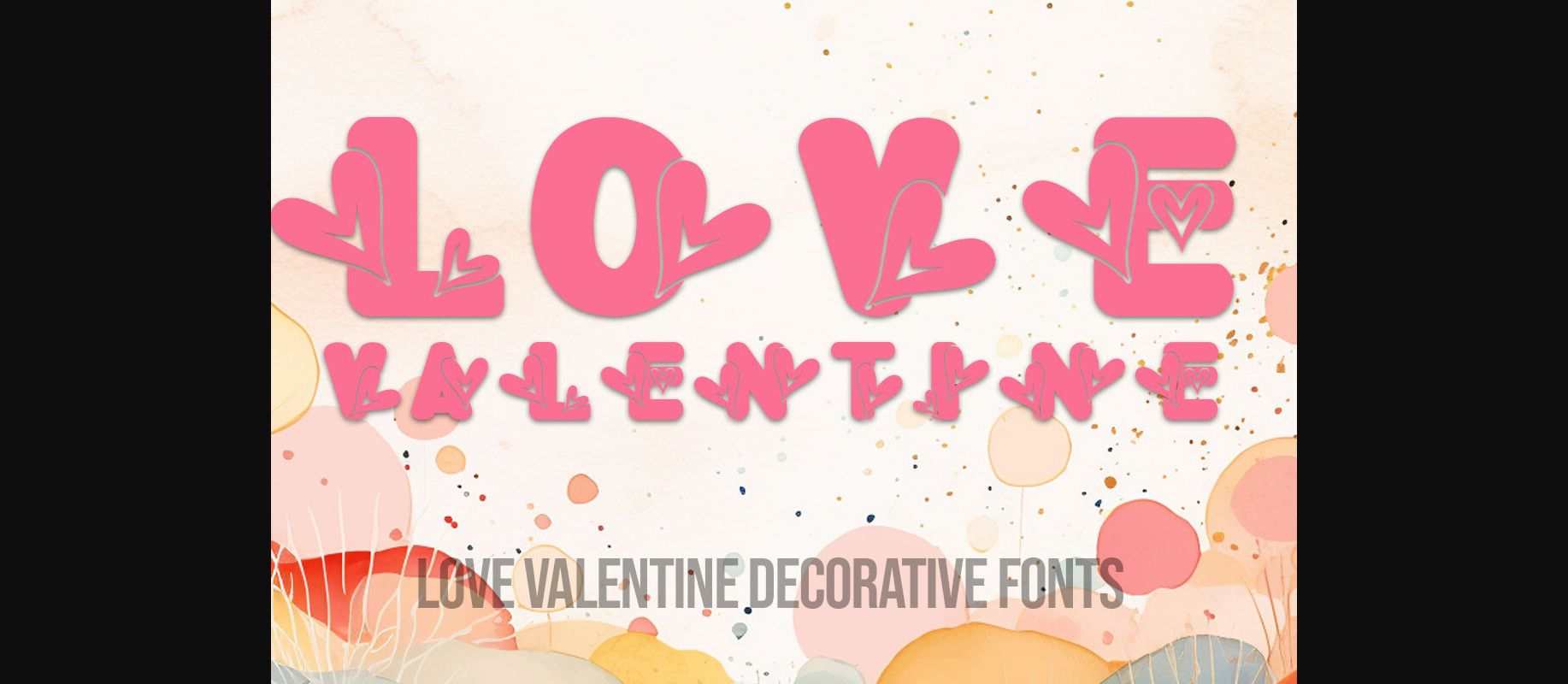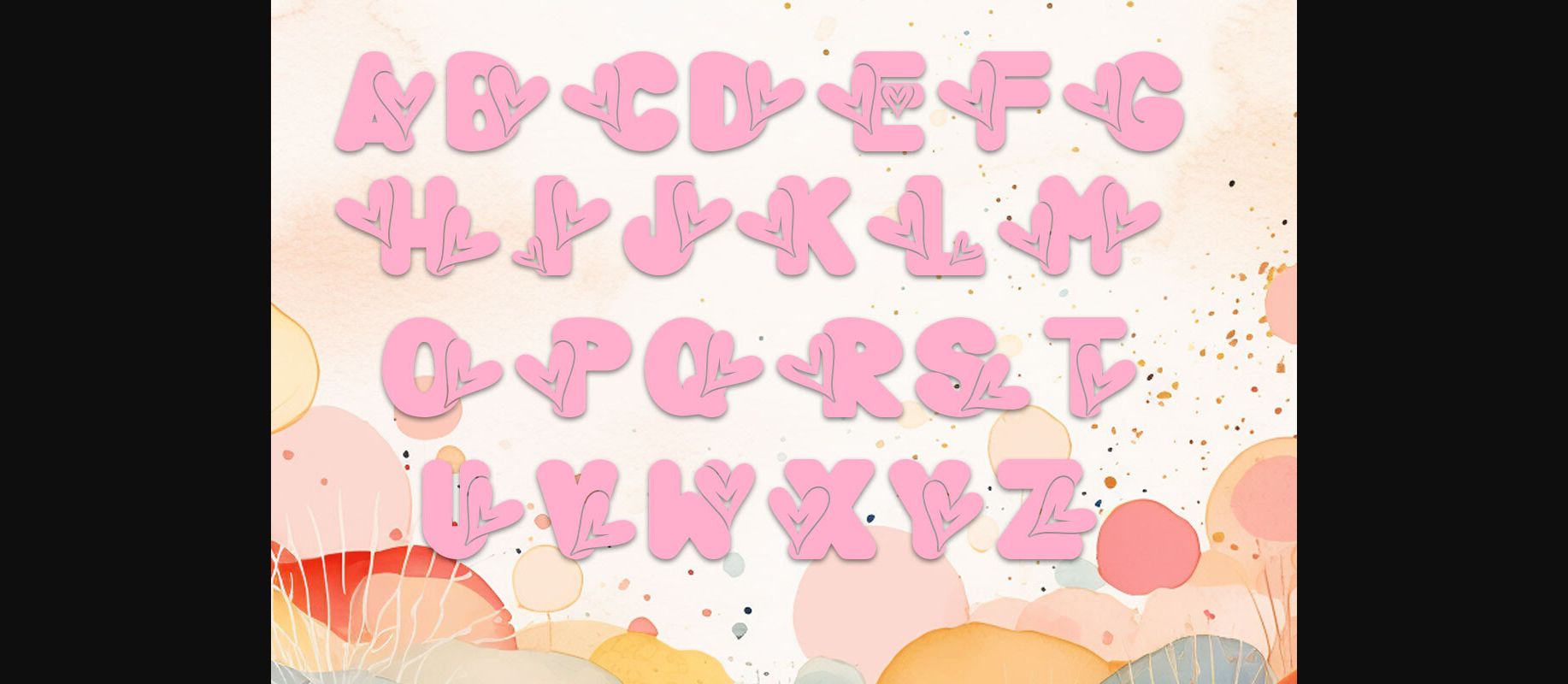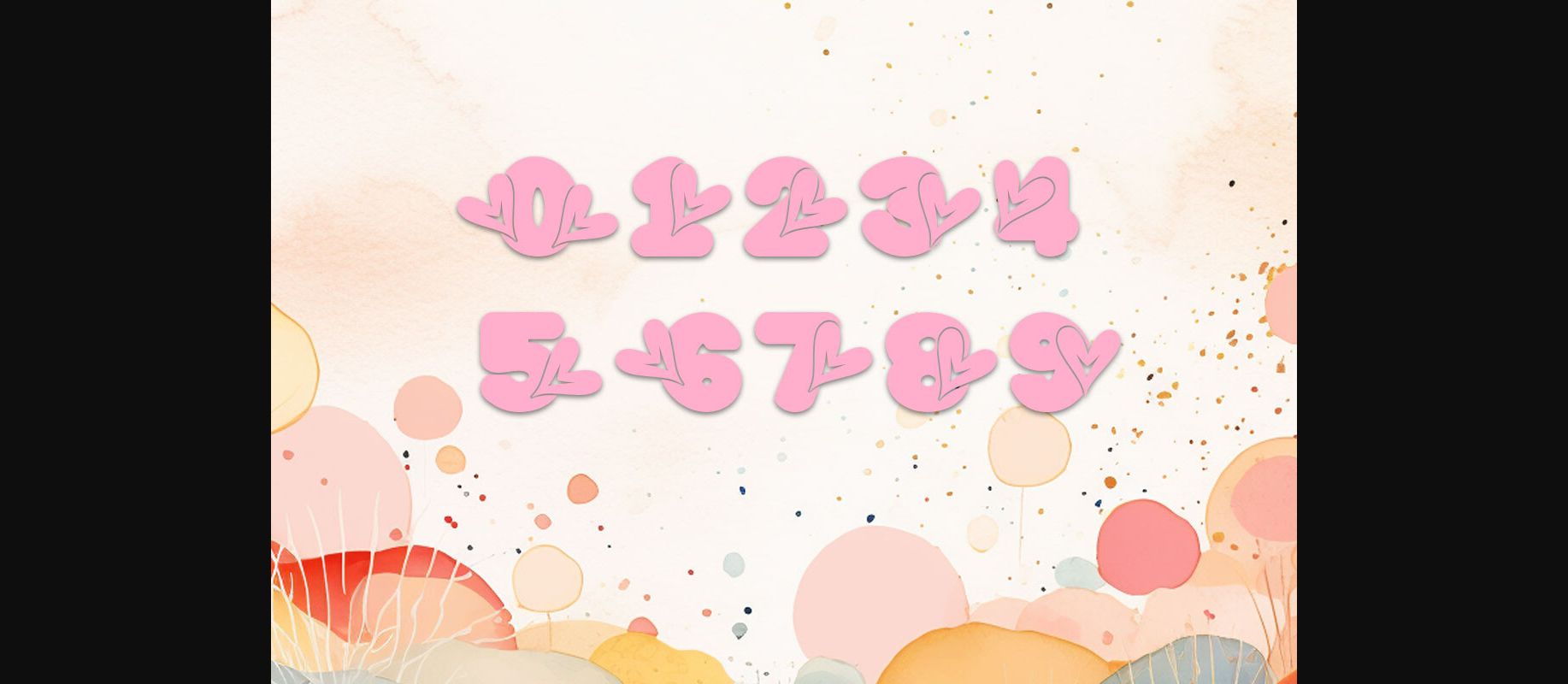
Love Valentine Font
About Love Valentine Font
Introducing our ‘Love Valentine Fonts’: 36 characters designed to infuse romance into your digital creations. This collection includes 26 uppercase letters and numbers 0-9, with heart-shaped designs, ensuring every character conveys love. Elevate your Valentine’s projects with this charming and versatile font, a perfect blend of passion and creativity